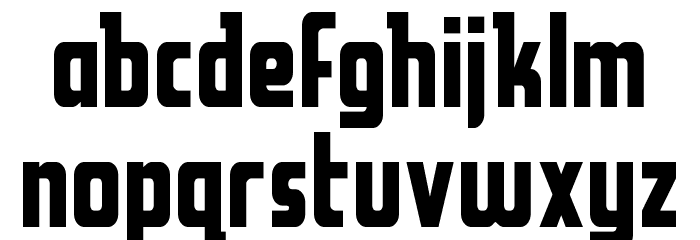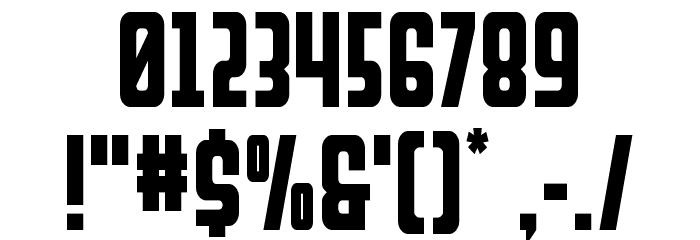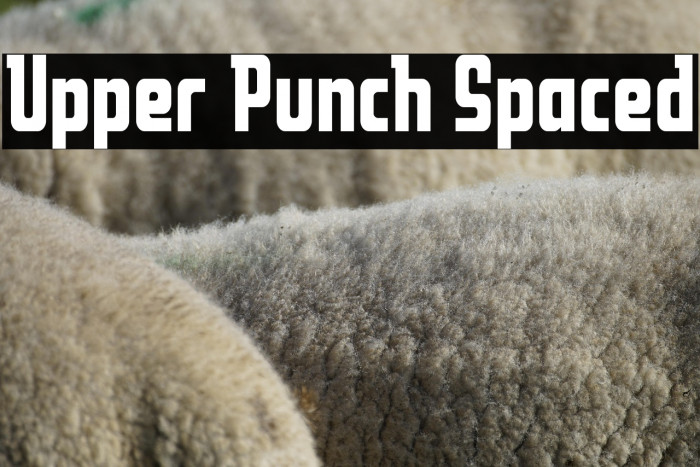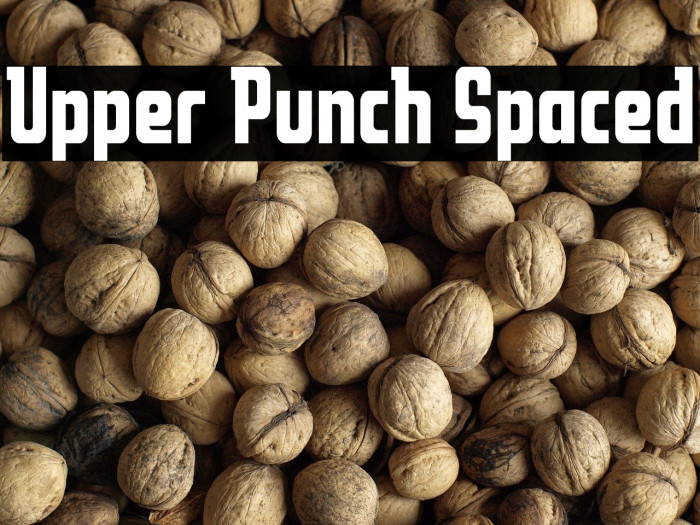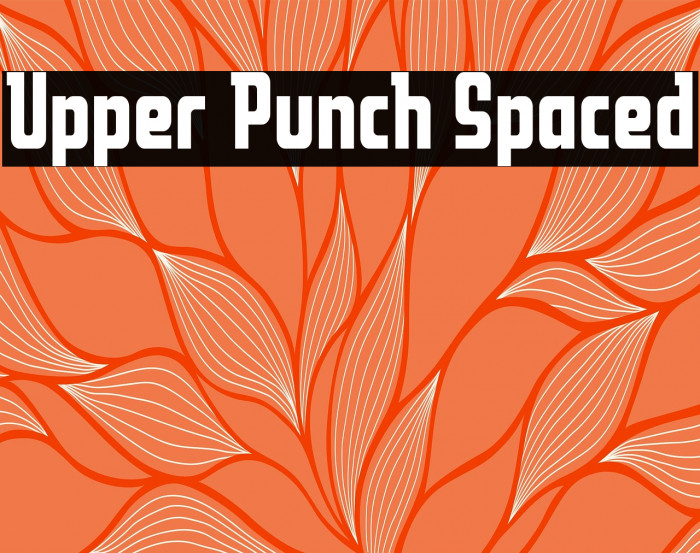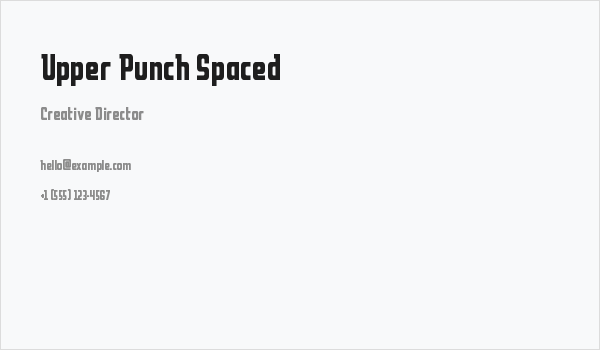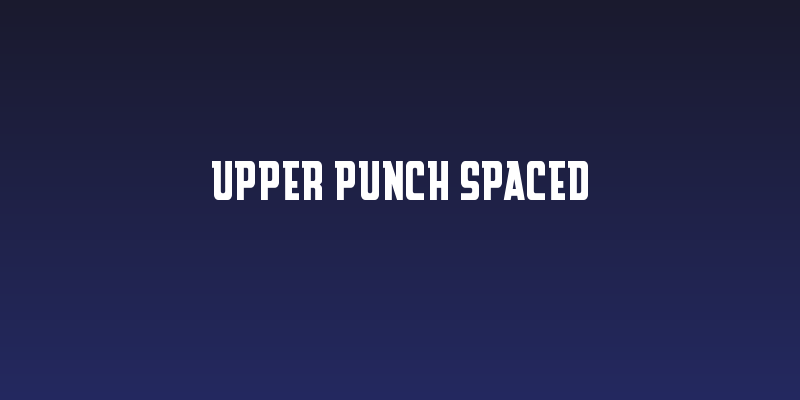
Upper Punch Spaced Font
This font features a bold and impactful design with strong geometric shapes and a modern aesthetic. The uppercase letters are tall and commanding, while the lowercase letters maintain a consistent weight, offering a cohesive look. The numerals are equally bold, ensuring readability and emphasis. Special characters are designed to match the overall boldness, making them stand out. The font's structure is clean and precise, with a slight industrial feel, making it suitable for attention-grabbing headlines and branding.
A bold, geometric font with a modern and industrial style.
- Proposed Projects: Ideal for branding, posters, headlines, and any project requiring a strong visual impact.